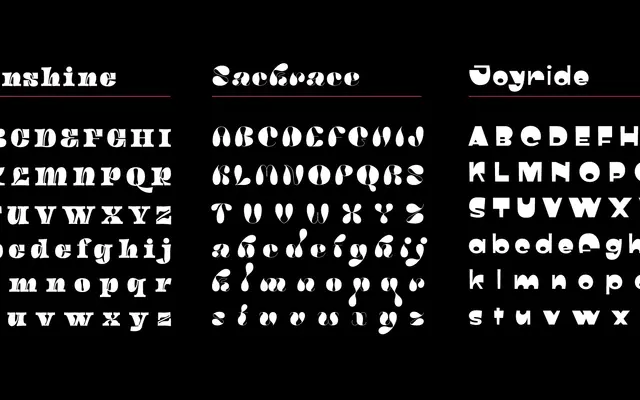
Quarantype
Zetafonts · Cosimo Lorenzo Pancini, Maria Chiara Fantini, Andrea Tartarelli, Francesco Canovaro, Debora Manetti · 2020
A collection of ten free display typefaces made by the Zetafonts team during Italy's March 2020 lockdown, each style drawn from their #36daysoftype challenge entries.
Ten distinct display faces developed in quick succession as the Zetafonts studio worked through the #36daysoftype challenge during the first Covid lockdown. The styles range from playful and calligraphic to experimental, each reflecting the team's ongoing research into contemporary trends and historical lettering. Released free for commercial and non-commercial use, the collection covers 186 languages across a Latin character set of 359 glyphs.
A collection of ten stylistically distinct display typefaces spanning playful, calligraphic and experimental styles, born from the #36daysoftype challenge; no single structural classification applies across all ten.